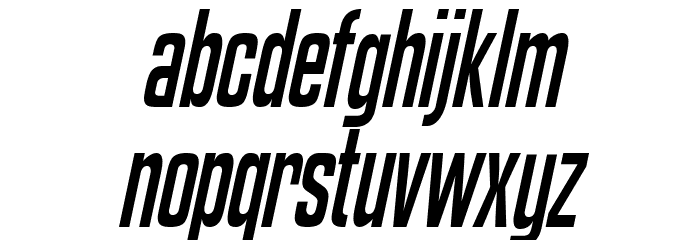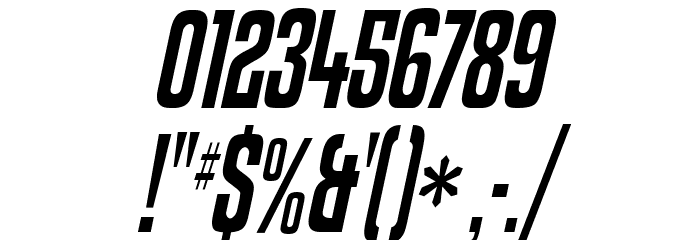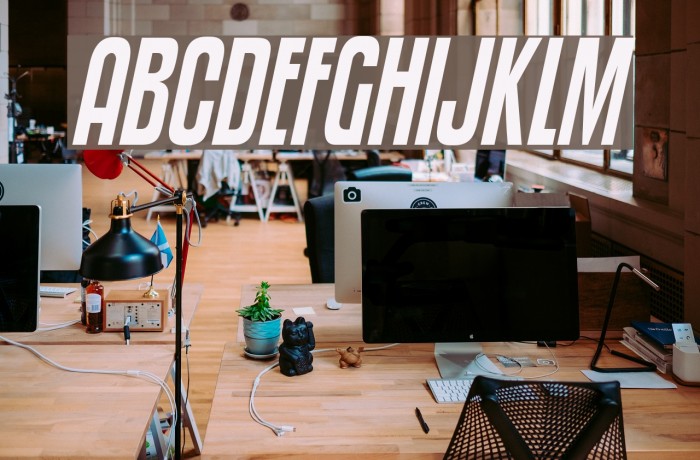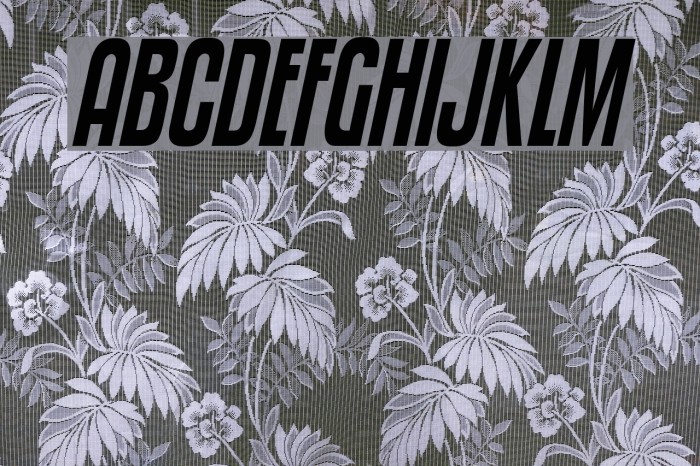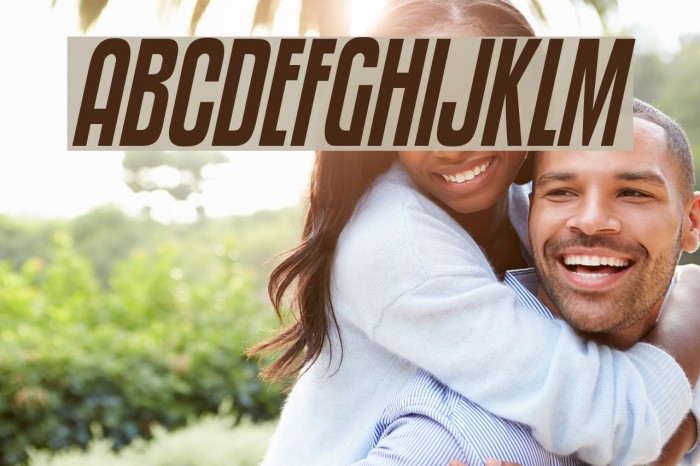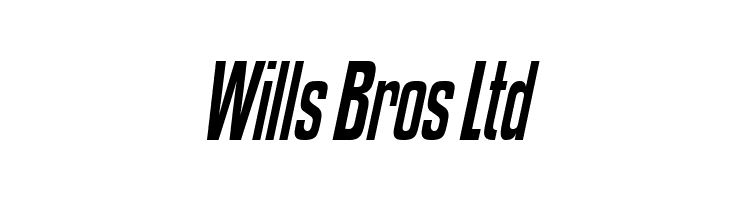
Kenyan Coffee Italic Font
This font features a dynamic and energetic style with a pronounced italic slant, giving it a sense of motion and urgency. The characters are bold and slightly condensed, with clean, sharp edges that enhance readability. The uppercase and lowercase letters maintain a consistent height, contributing to a uniform appearance. The numerals are well-proportioned, aligning seamlessly with the alphabetic characters. Special characters are distinct and easily recognizable, adding versatility to the font. The overall design is modern and sleek, making it suitable for a variety of applications where impact and clarity are desired.
A bold, italic font with a dynamic and modern style.
- Proposed Projects: Ideal for branding, advertising, sports team logos, and dynamic headlines.
- Use Case: Headlines, Logos, Branding